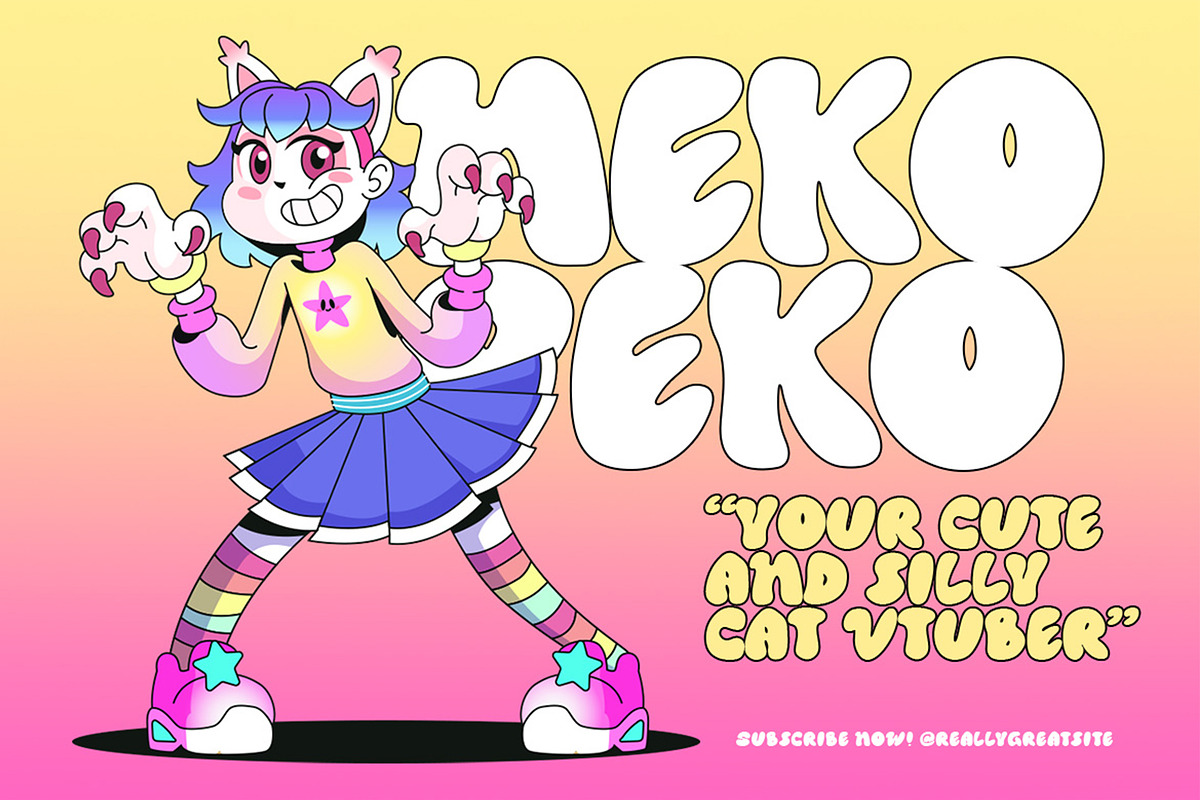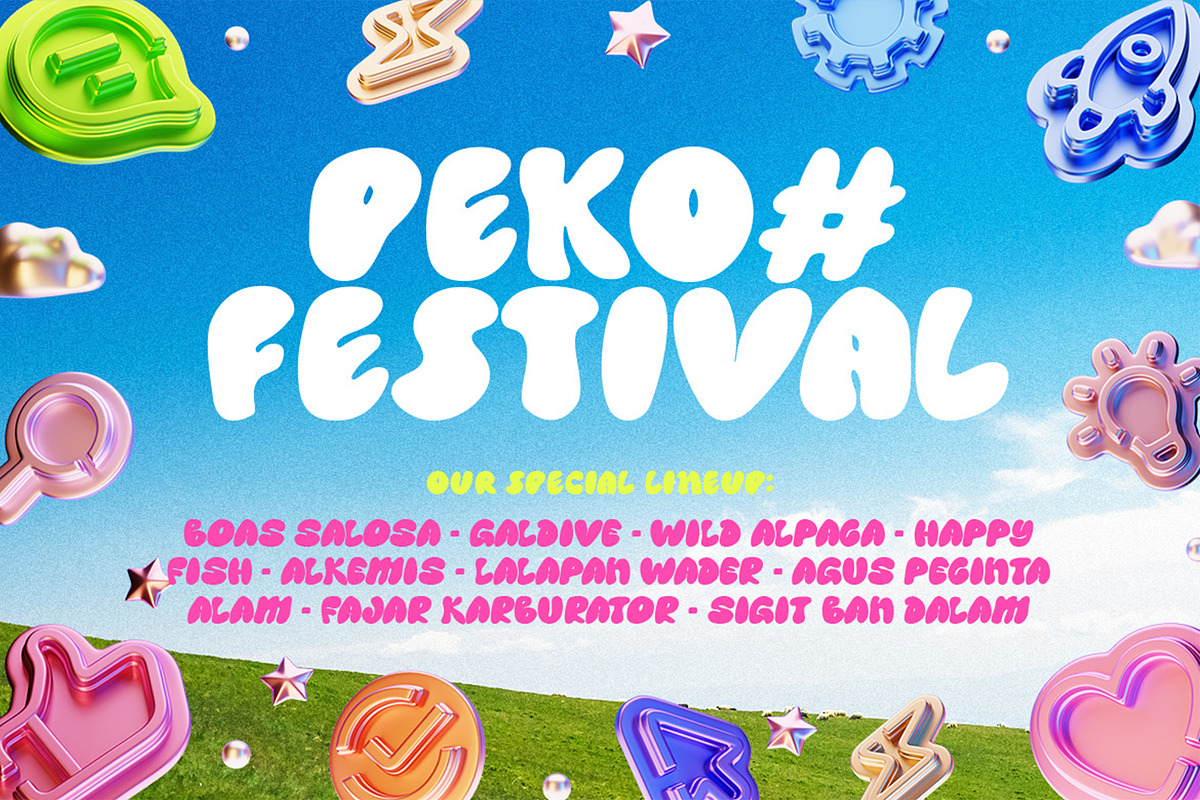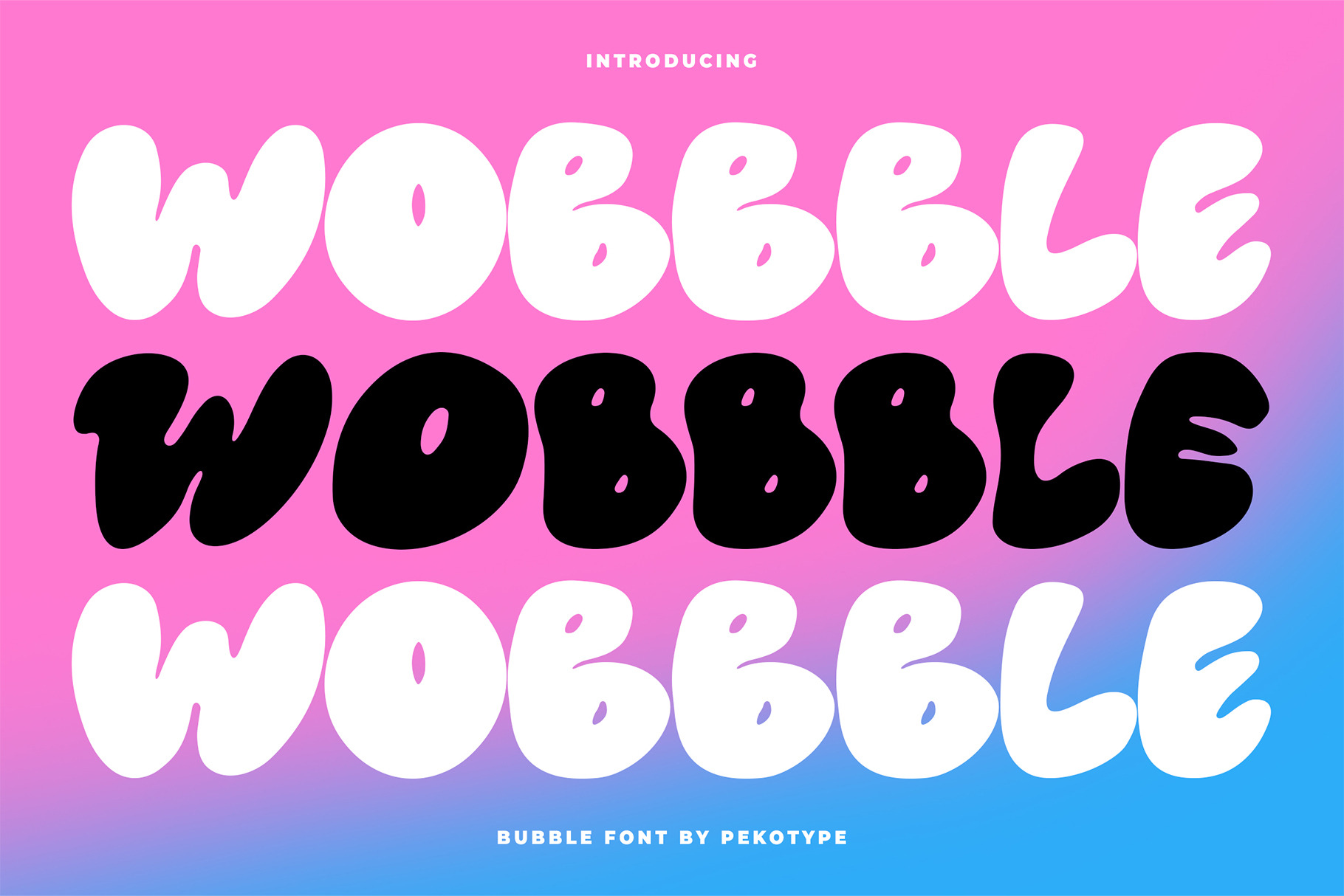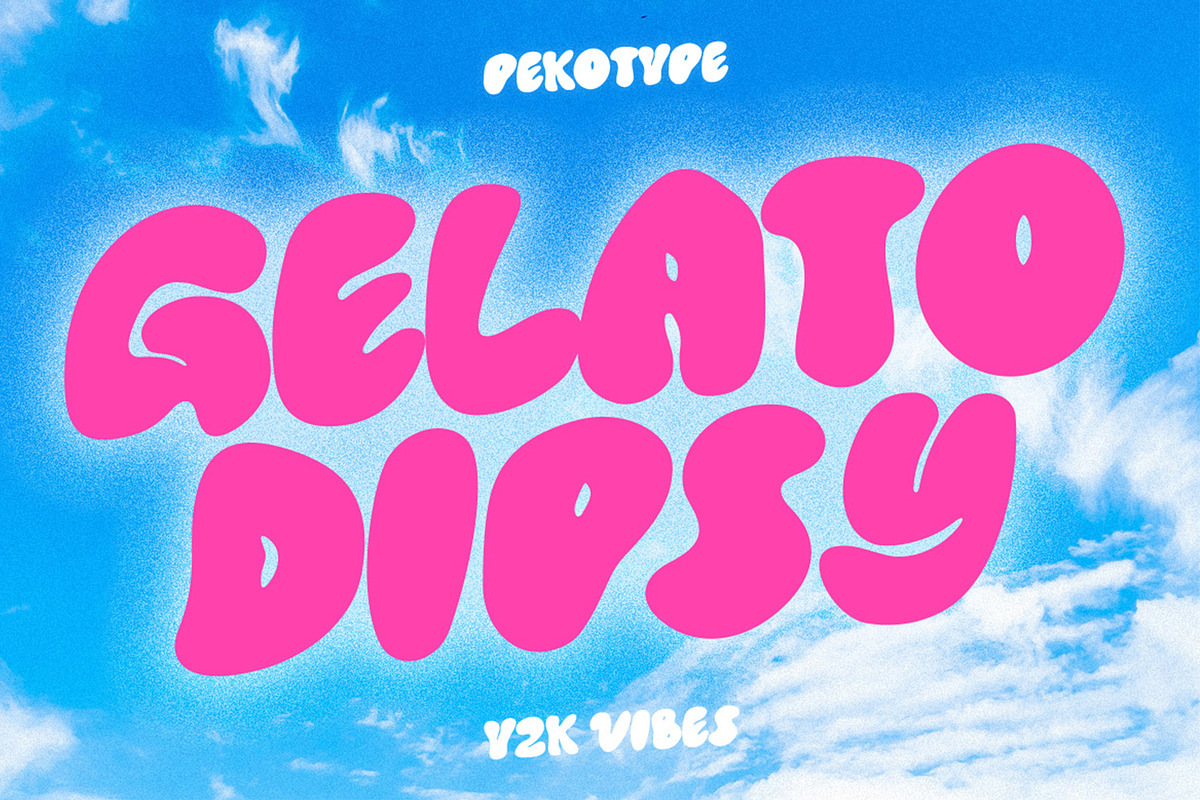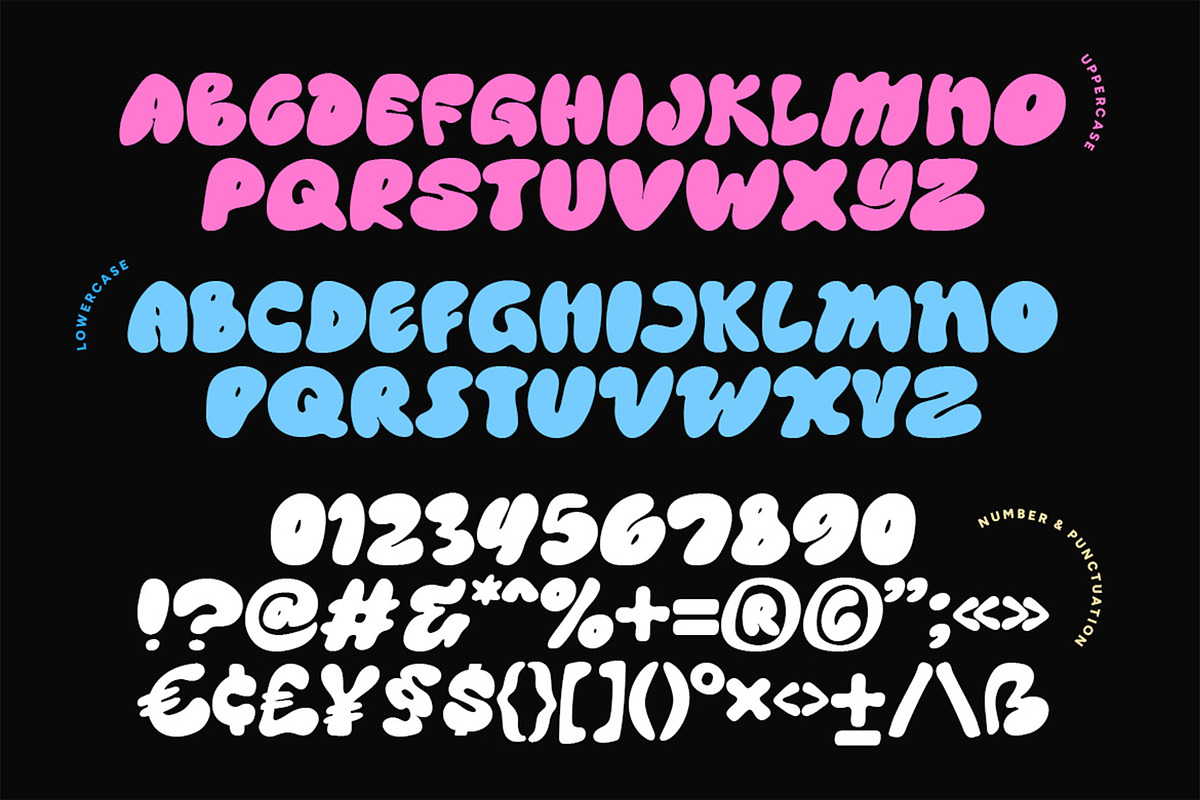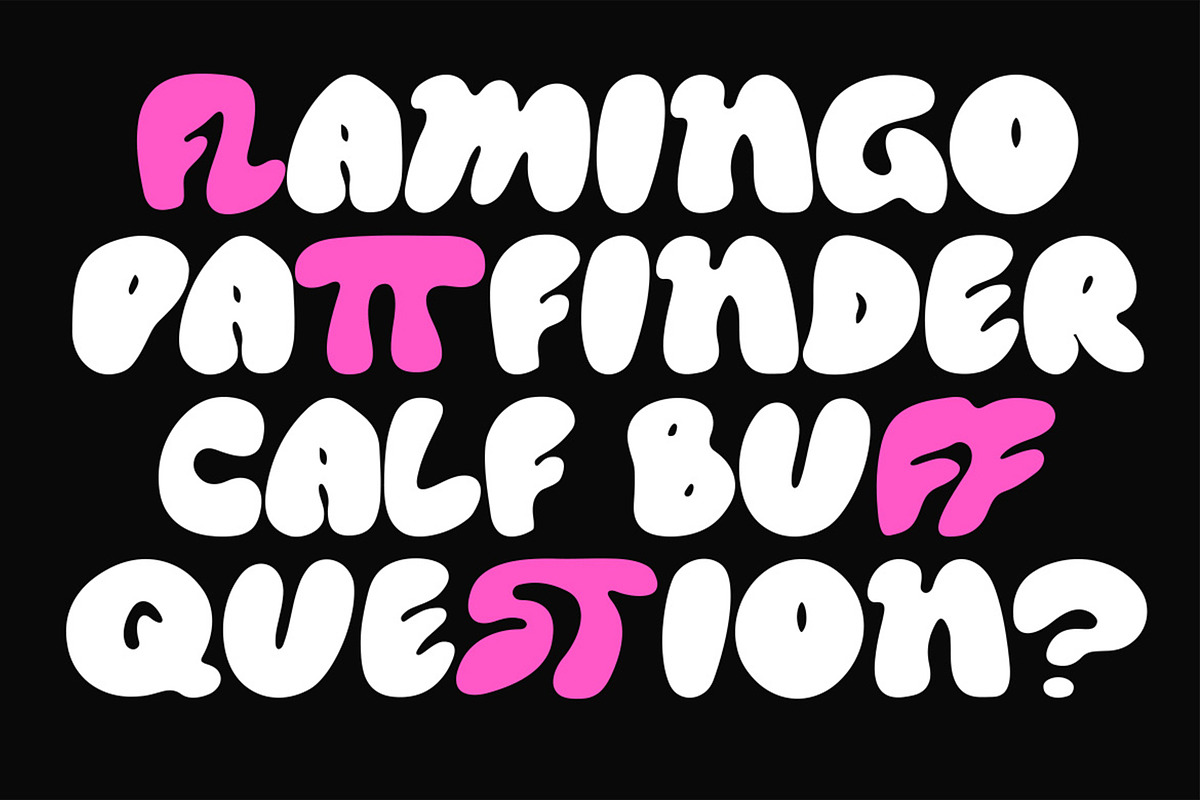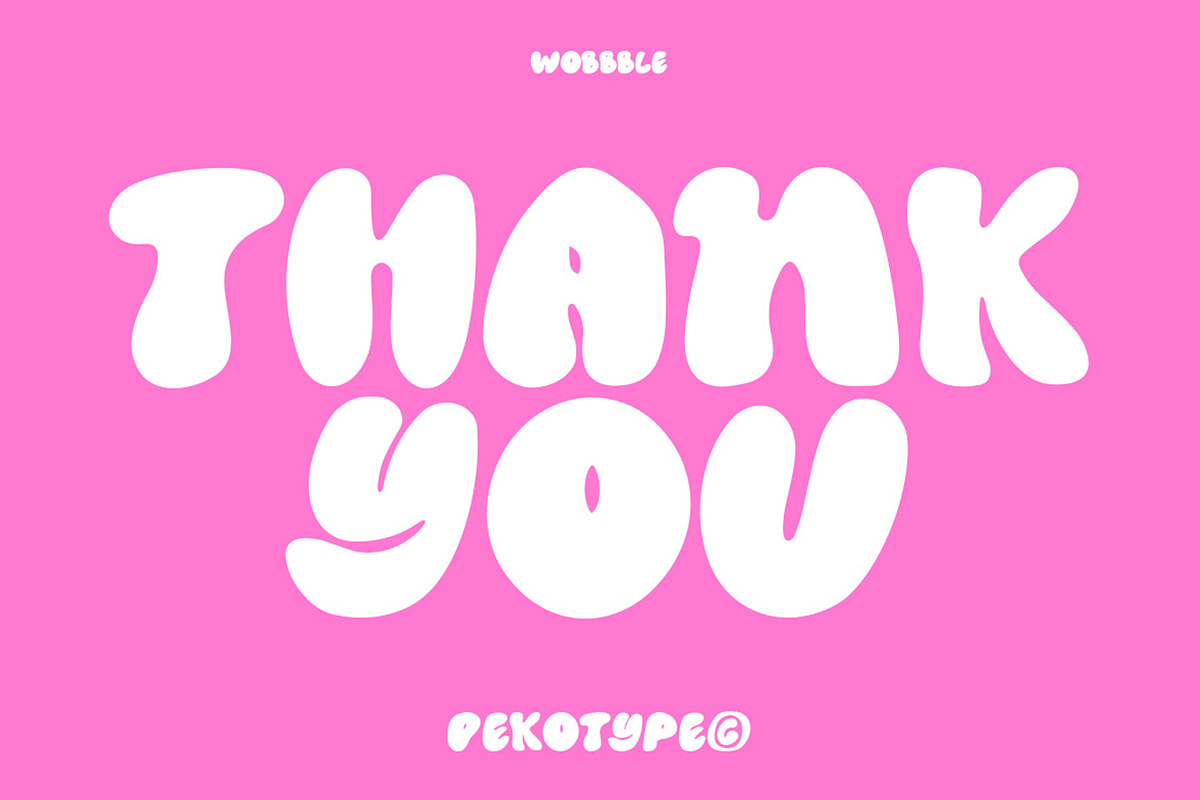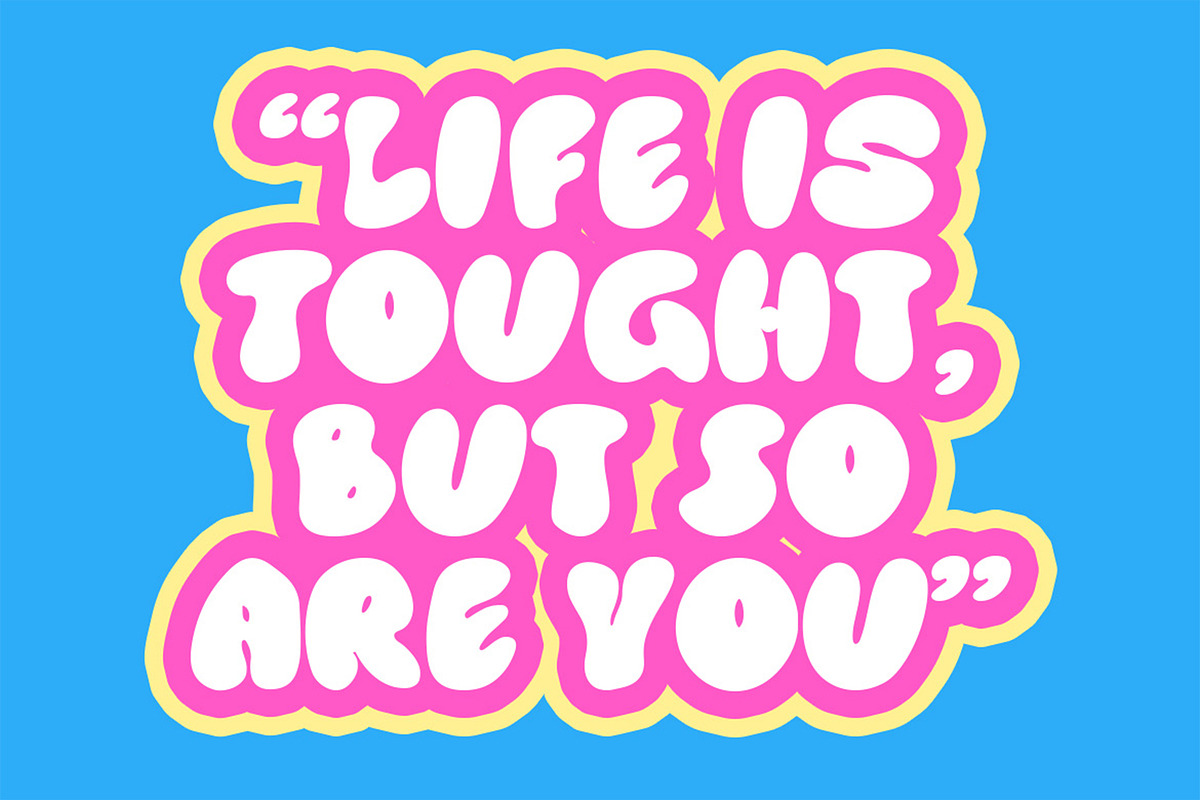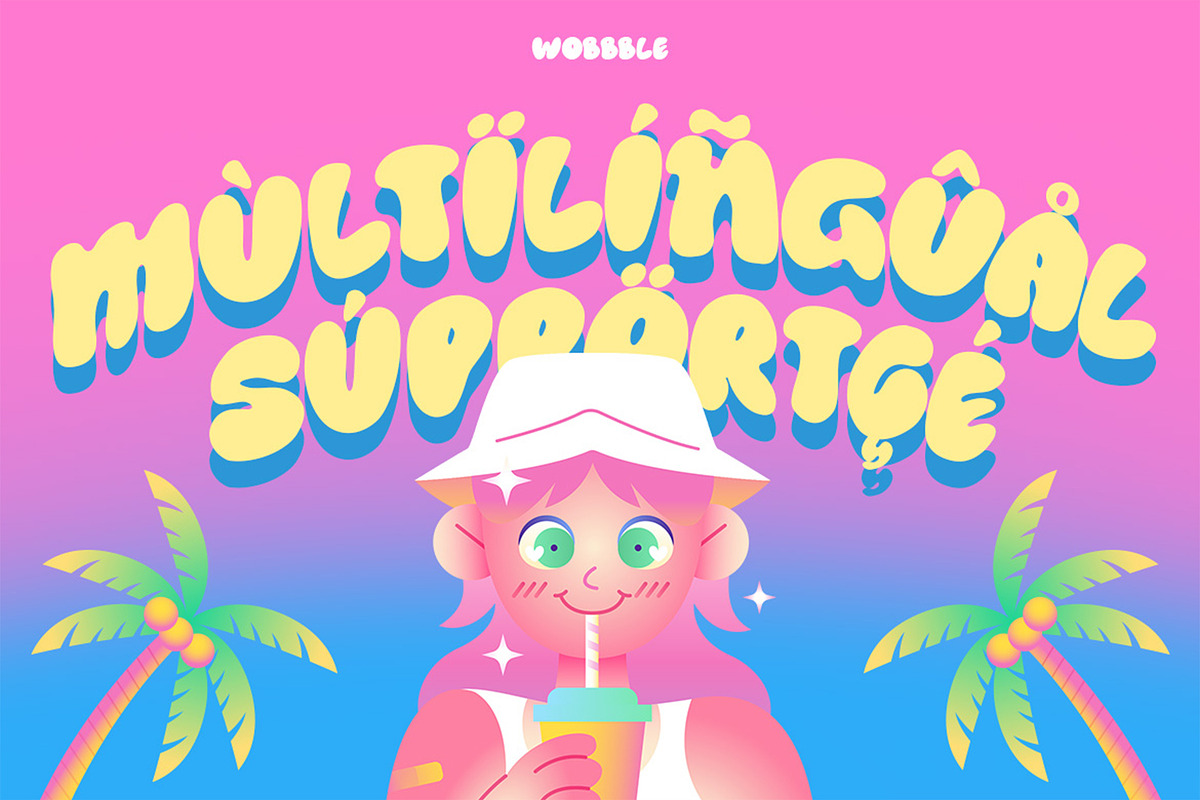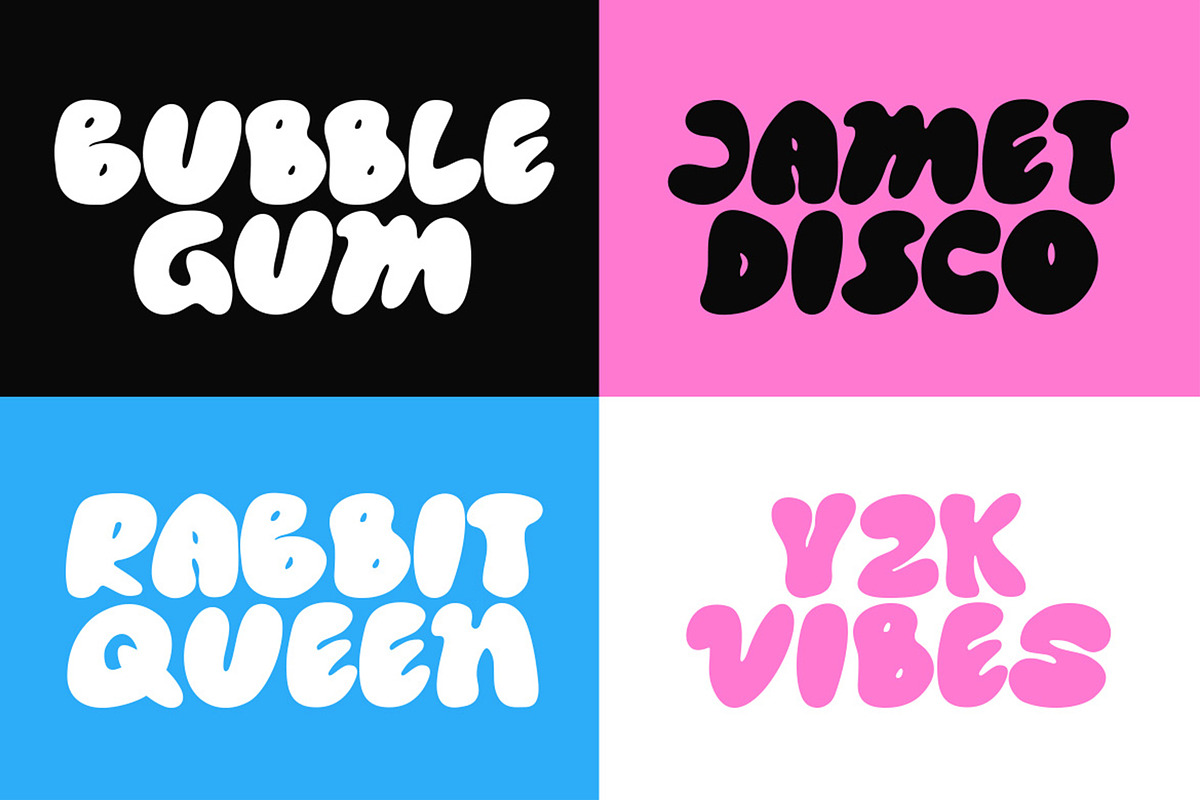
Wobbble - Bubble Display Font
WOBBBLE – Playful Bubble Display Font WOBBBLE is a bold and bubbly display font that brings fun, joy, and cheerful energy to your design. With its rounded and puffy letterforms, this font is perfect for projects that need a playful and eye-catching vibe. Whether you’re working on branding, logo design, social media content, event promotions, packaging, or creative merchandise, WOBBBLE makes your message stand out with a touch of fun. Designed in ALL CAPS style, WOBBBLE ensures readability while maintaining its quirky and dynamic character. It’s an ideal choice for playful kids’ projects, colorful posters, music festival designs, retro Y2K themes, and any creative idea that needs a pop of personality. Bring your designs to life with WOBBBLE – the bubble font that makes every word bounce with joy! Features: - All-Caps Font Number - Symbol - Punctuation Multilingual - OTF, TTF, WOFF, WOFF2